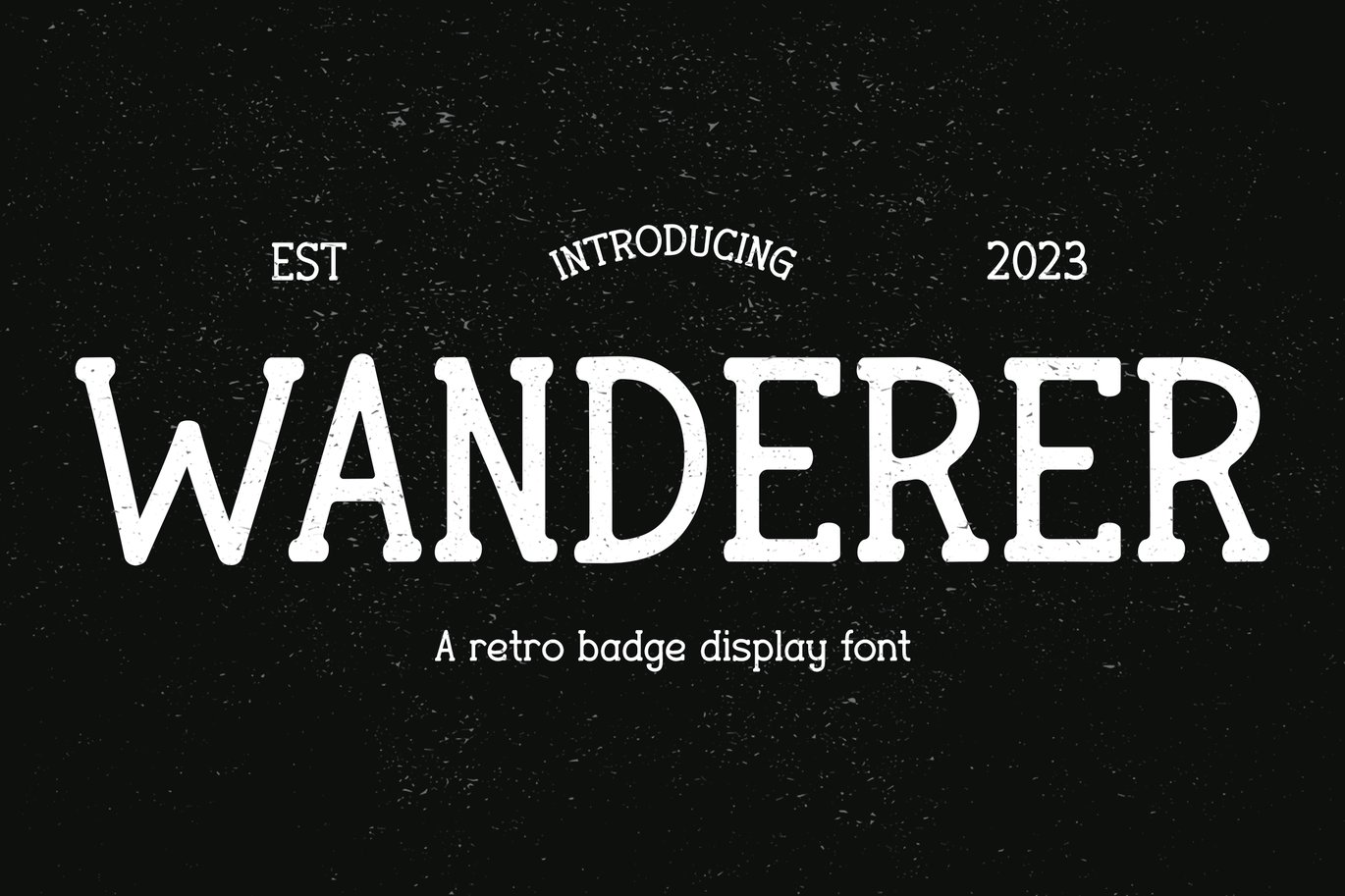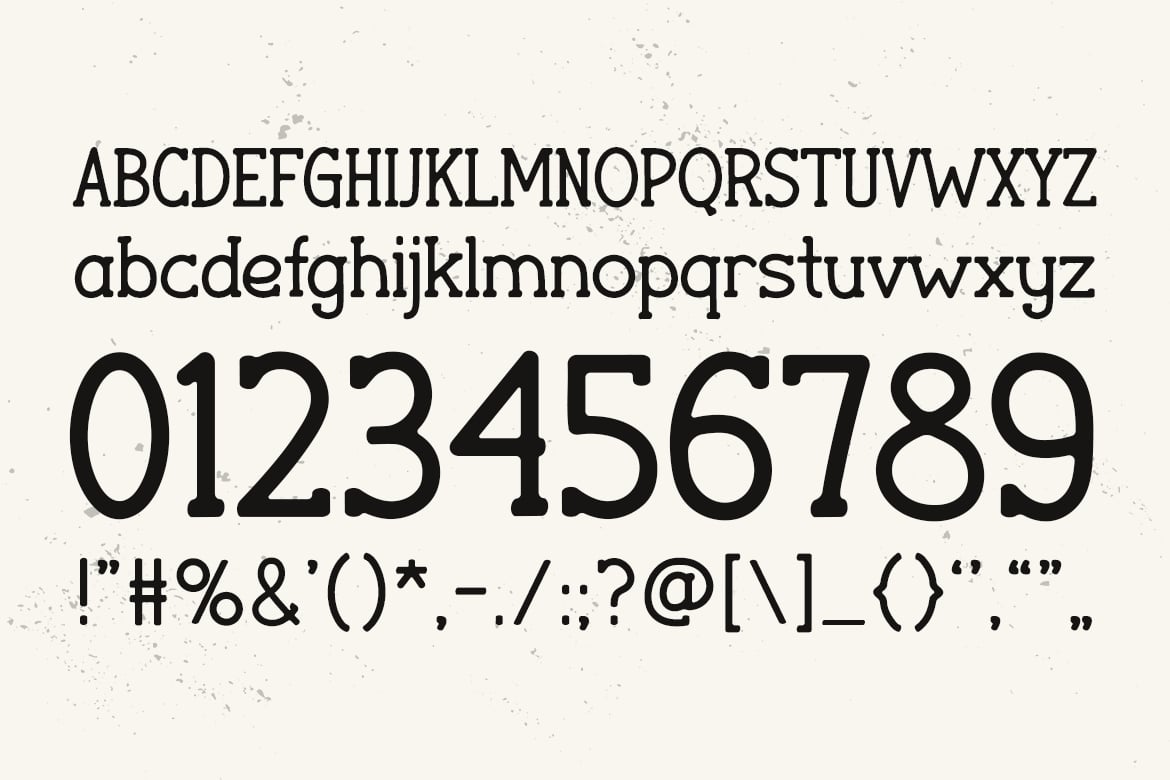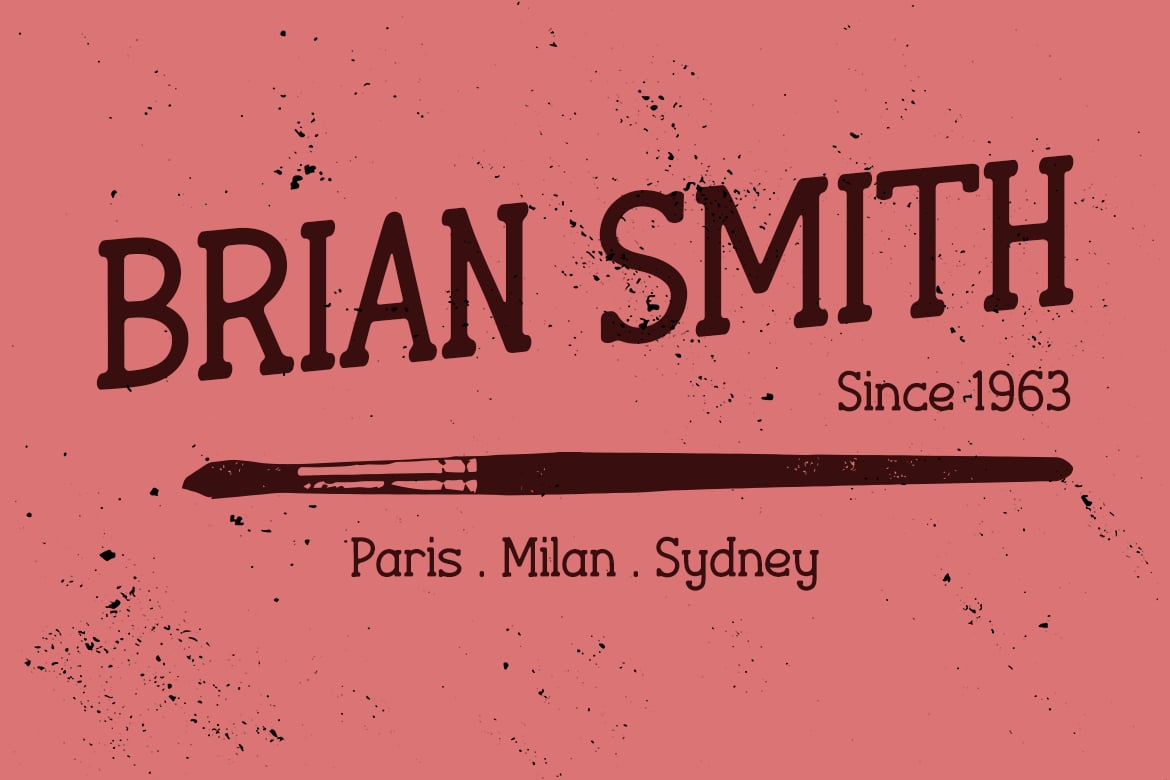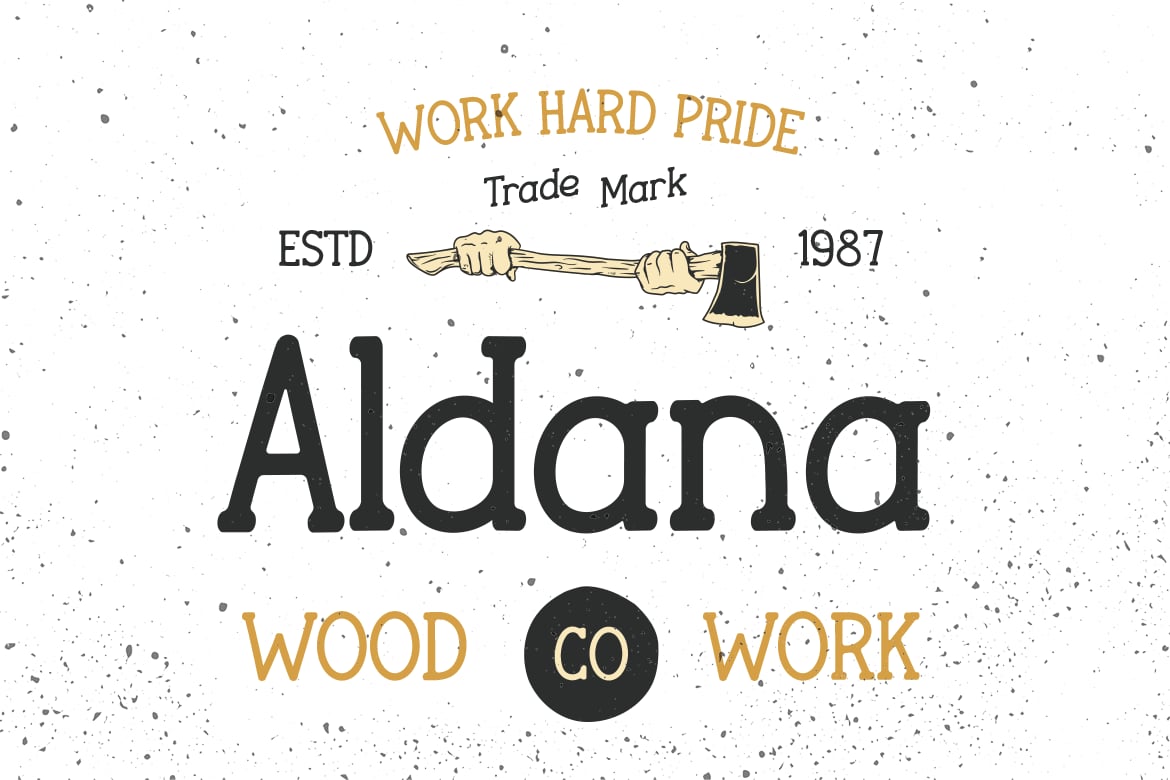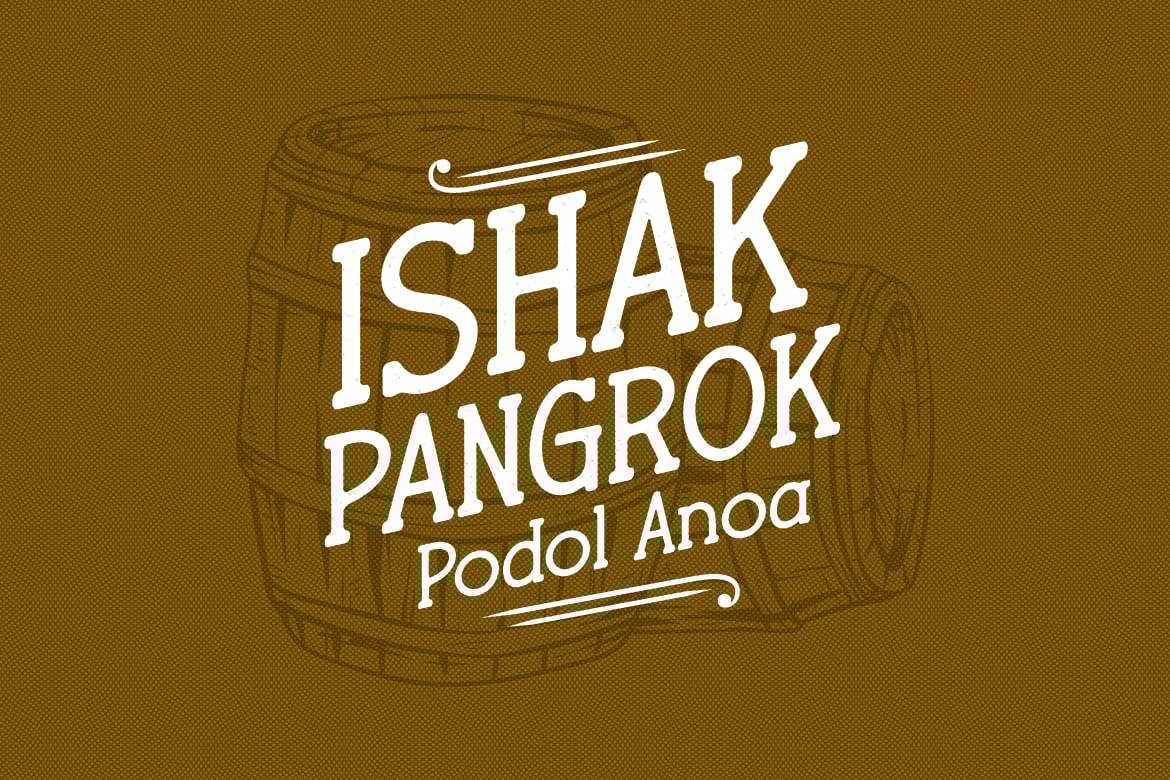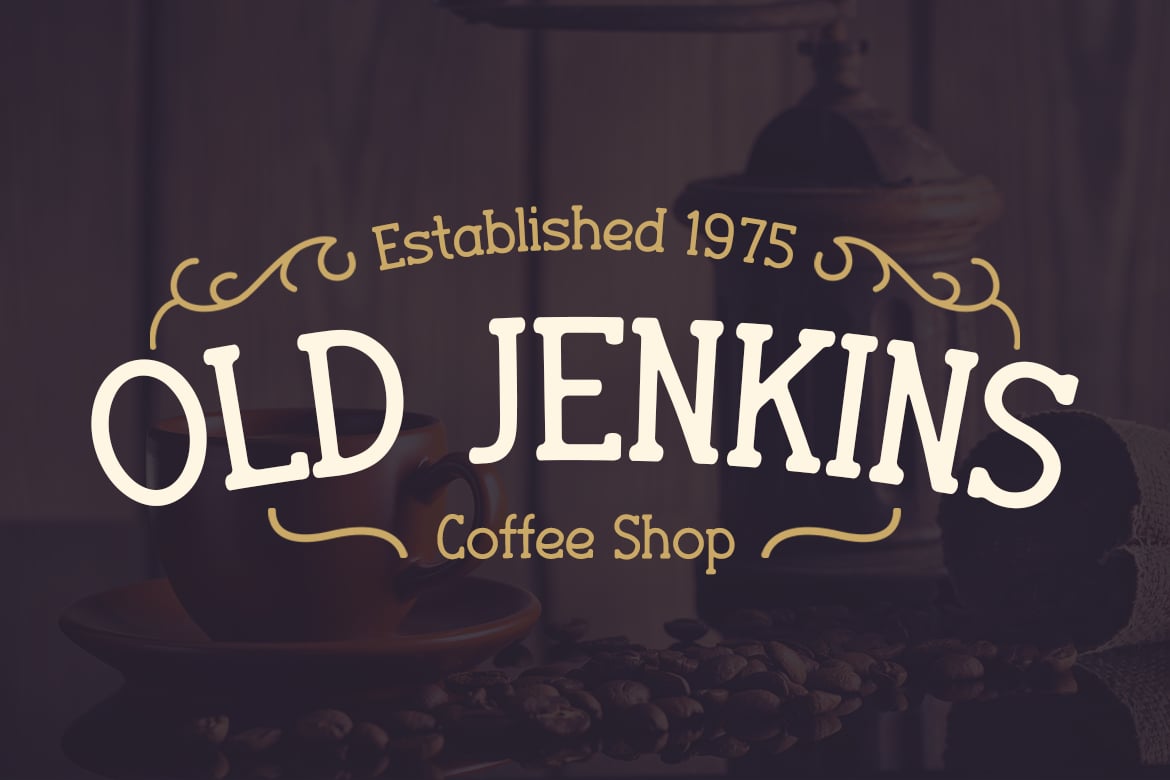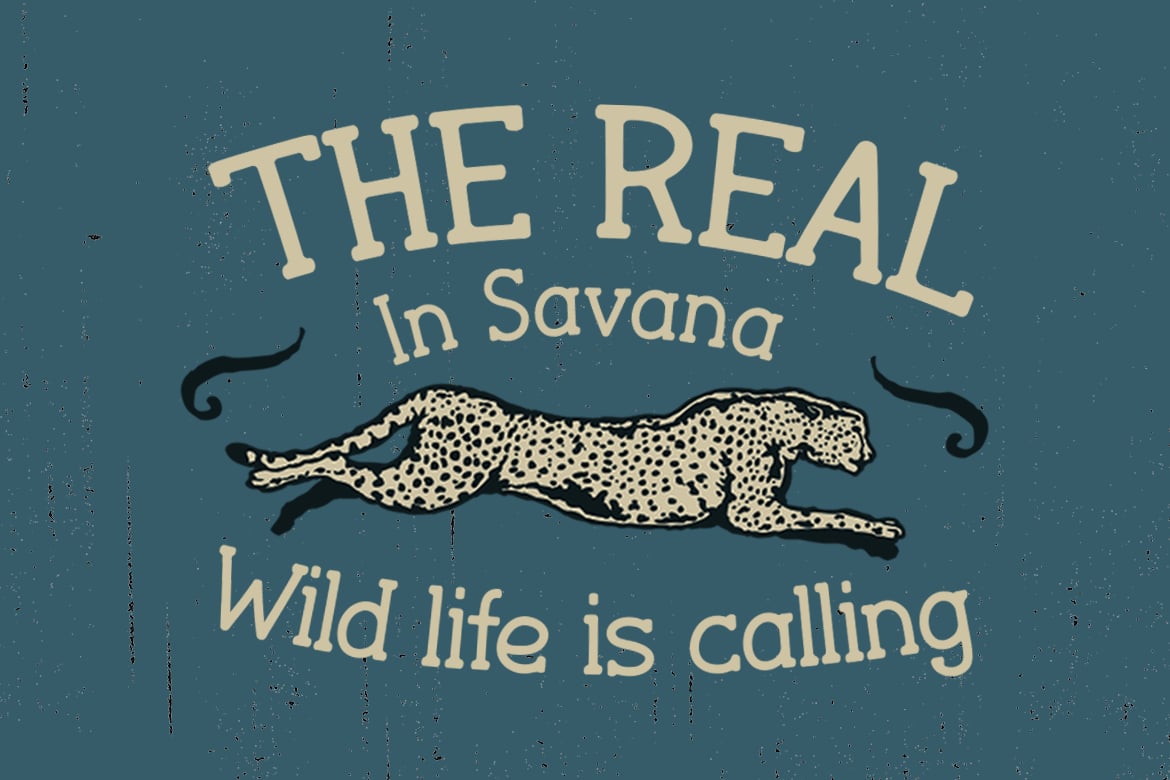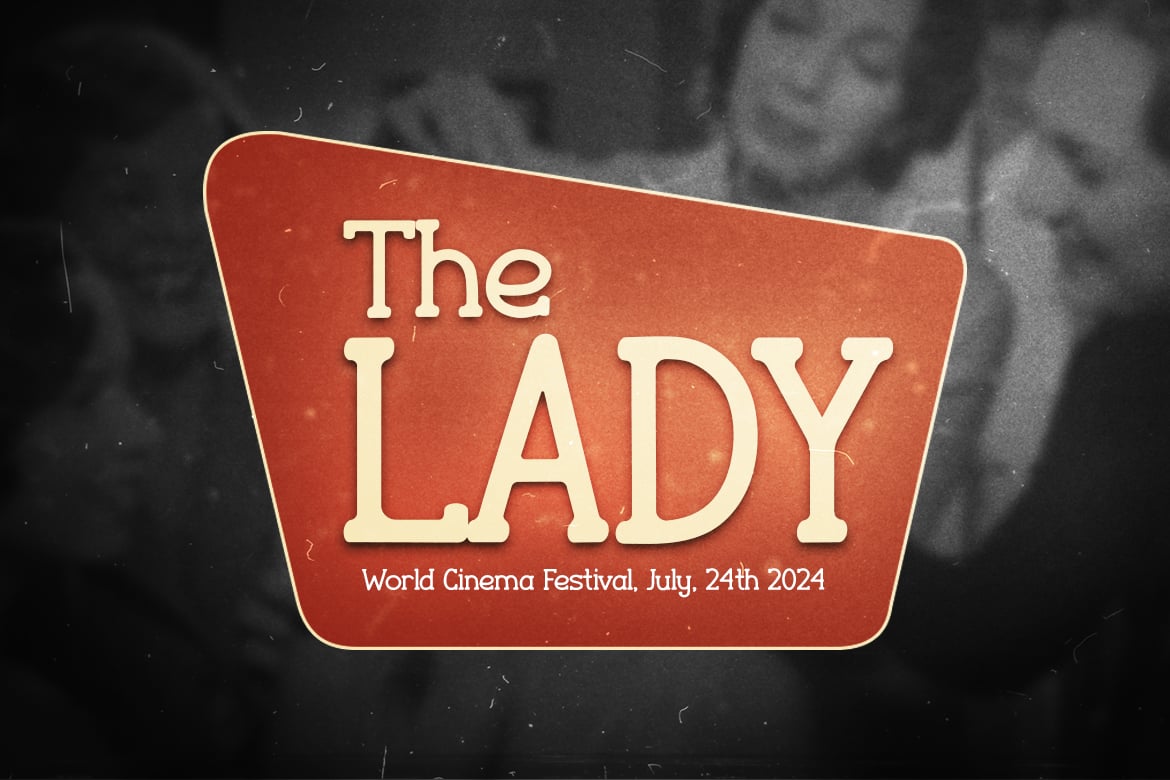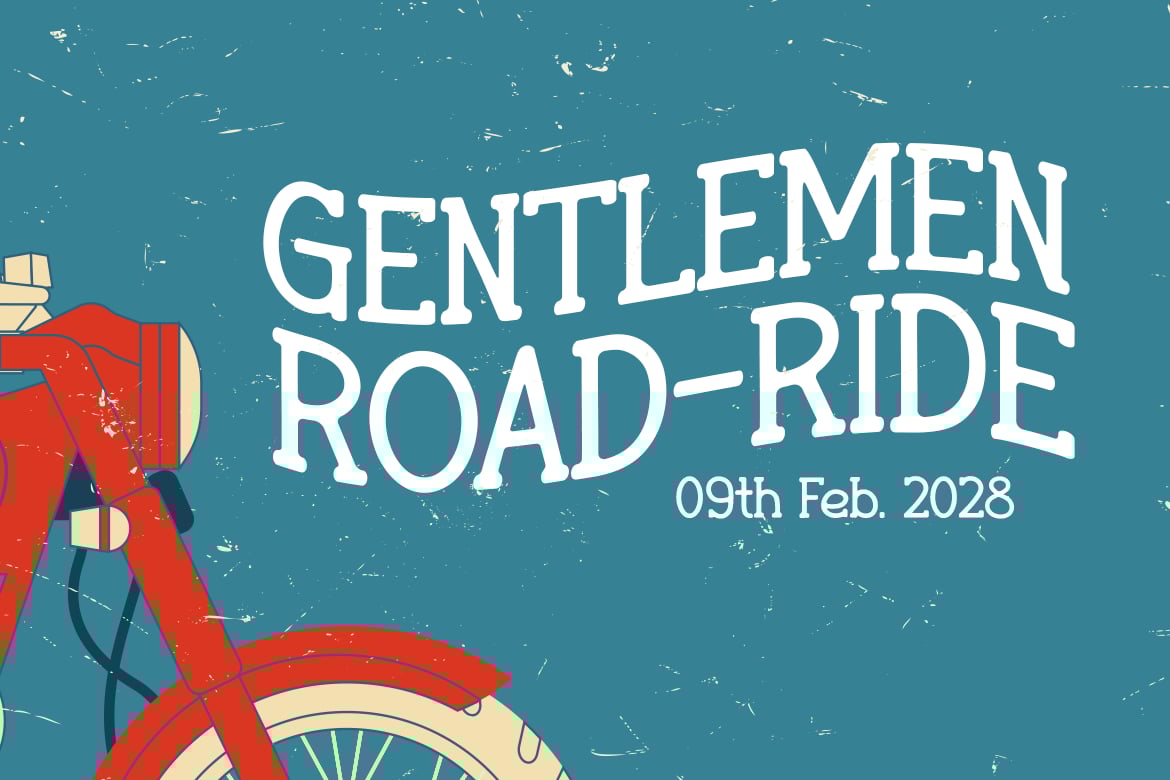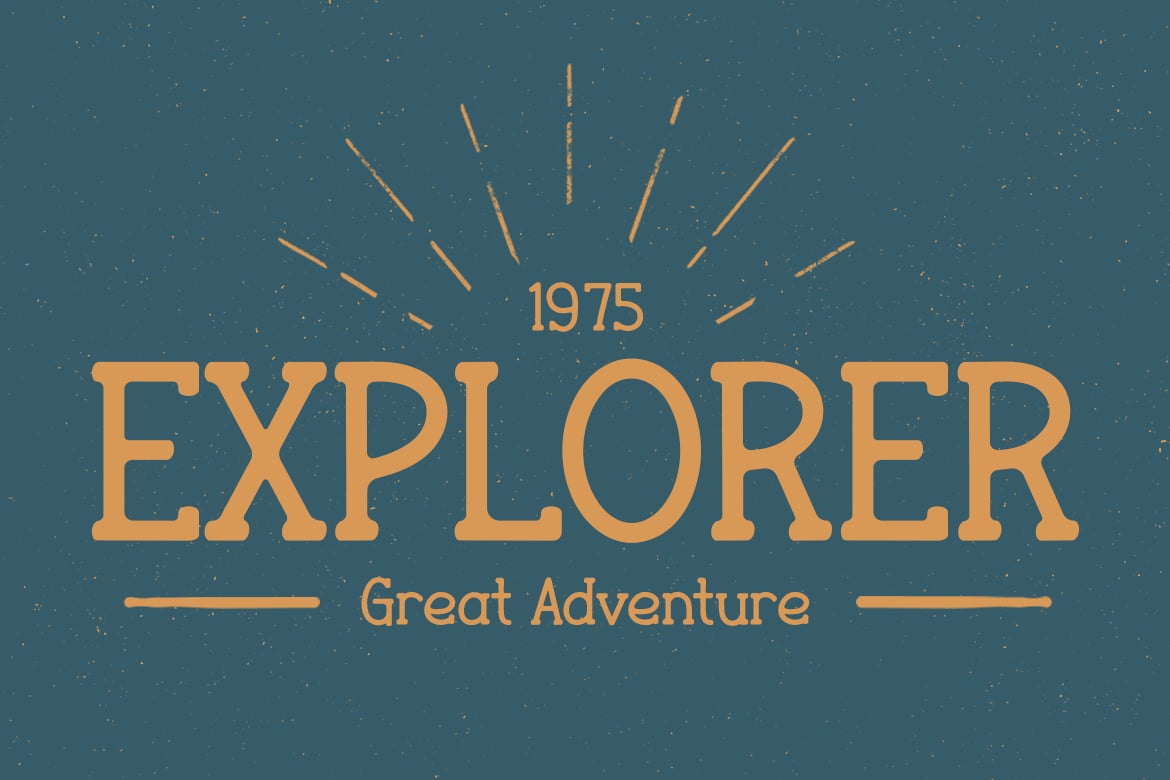
Wanderer – Retro Font
Wanderer takes you on a captivating retro journey, seamlessly blending vintage charm with the elegance of badges. Perfect for posters, logo designs, merchandise, and retro marketing tools, Wanderer immerses your projects in the allure of yesteryears. Embrace the nostalgia as the vintage-inspired letterforms evoke the craftsmanship of a bygone era. Whether you’re creating an eye-catching poster, crafting a distinctive logo, or enhancing your marketing tools with timeless charm, Wanderer captures the essence of classic design. Let the badges and vintage elements tell stories of a simpler time and add an artisanal touch to your projects. Infuse your designs with the enduring elegance of Wanderer and embark on a journey where vintage and badges harmonize in perfect unity.